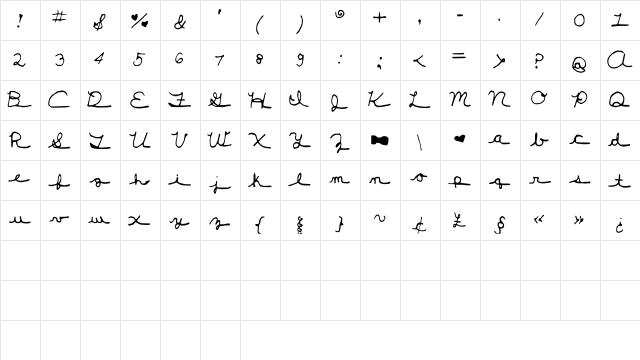
New_Girl_Cursive Font Preview
New_Girl_Cursive Cursive
Design Context for New_Girl_Cursive Typeface
New_Girl_Cursive flows with the natural rhythm of handwritten lettering, making it ideal for designs that call for warmth and personal expression.
Font Pairing: Combine New_Girl_Cursive with a simple geometric sans for maximum contrast — the tension between flowing curves and clean structure is a classic typographic pairing.
Pro Tip: Use New_Girl_Cursive for short runs of text — names, titles, or taglines. Extended body copy in script faces tires the eye quickly.